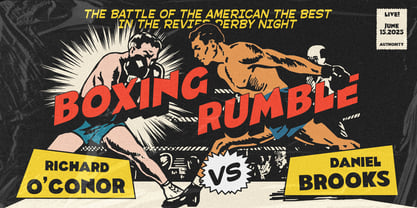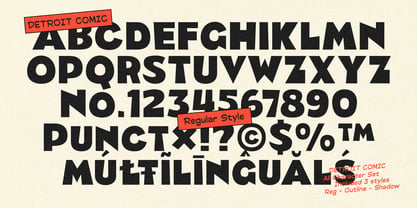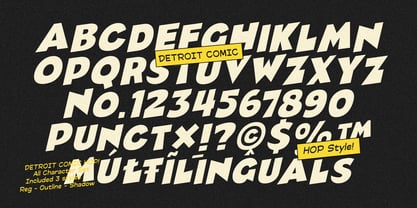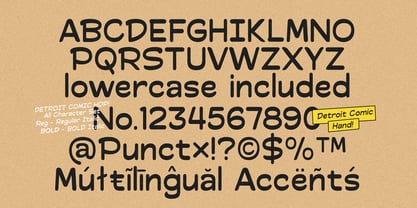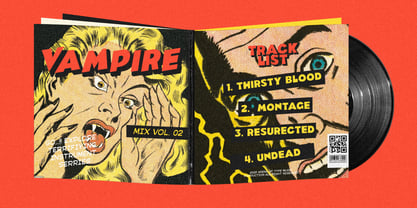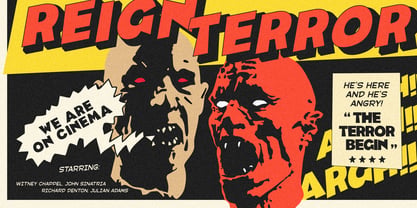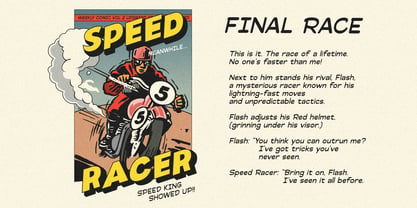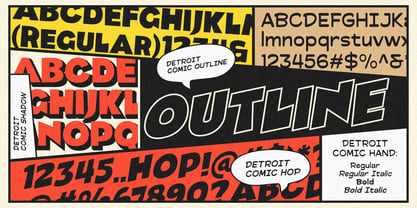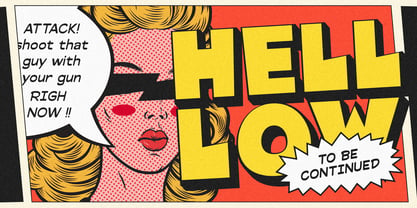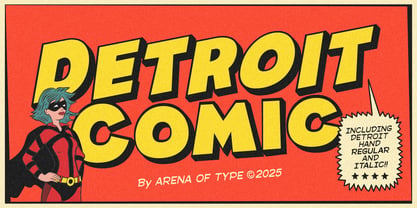
Detroit Comic
by Arena Of Type
The Detroit Comic Font Family was designed by Prio Nurokhim Aji and published by Arena Of Type. Detroit Comic contains 10 styles and family package options. More about this family
Detroit Comic – The Ultimate Comic Font Collection with 10 Expressive Styles
Detroit Comic is a bold, playful, and dynamic font family crafted to bring energy and personality to your designs. Inspired by classic comic lettering but refined for a smoother, more modern look, this collection offers a perfect balance of fun and functionality.
With 10 unique styles, Detroit Comic provides endless creative possibilities:
Detroit Comic (Regular, Shadow, Outline) – A striking, high-impact font perfect for titles, covers, and bold statements.
Detroit Hop (Regular, Shadow, Outline) – A lively and energetic variant that adds a playful edge to your designs.
Detroit Hand (Regular, Italic, Bold, Bold Italic) – A refined take on handwritten comic fonts, designed for speech bubbles, captions, notes, and storytelling elements.
The perfect font pairing between Detroit Comic and Detroit Hand ensures a seamless flow, making it easy to create engaging and professional designs. Whether for comics, posters, branding, social media, children’s books, or digital content, Detroit Comic adds a unique charm that stands out.